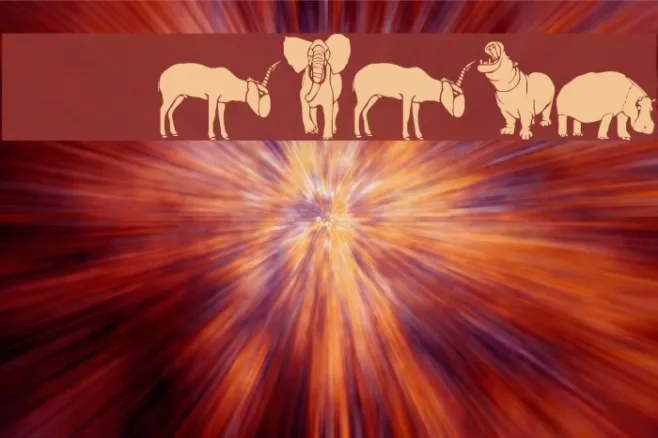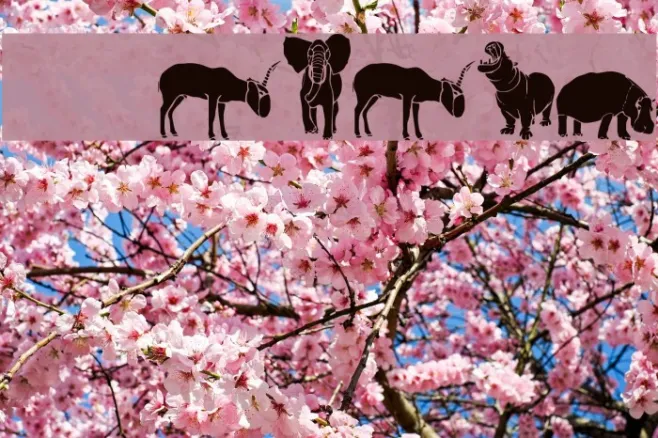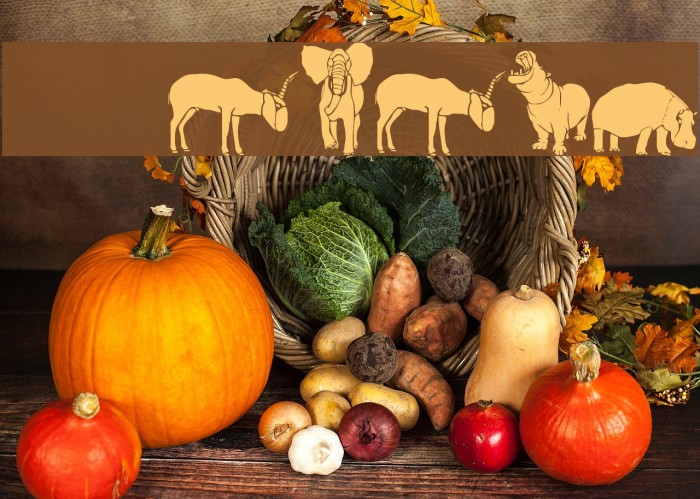
WWSafari Font
WWSafari Description
A decorative font composed of detailed black silhouettes of various safari animals, each character representing a different animal in profile or dynamic pose, with clear outlines and some internal detailing for features like stripes and horns.
| Overall Style | Decorative, Playful, Thematic |
| Use Case | Logos, Posters, Educational graphics, Themed displays |
| Proposed Projects | Children's books, educational materials, zoo signage, wildlife posters, themed party invitations. |